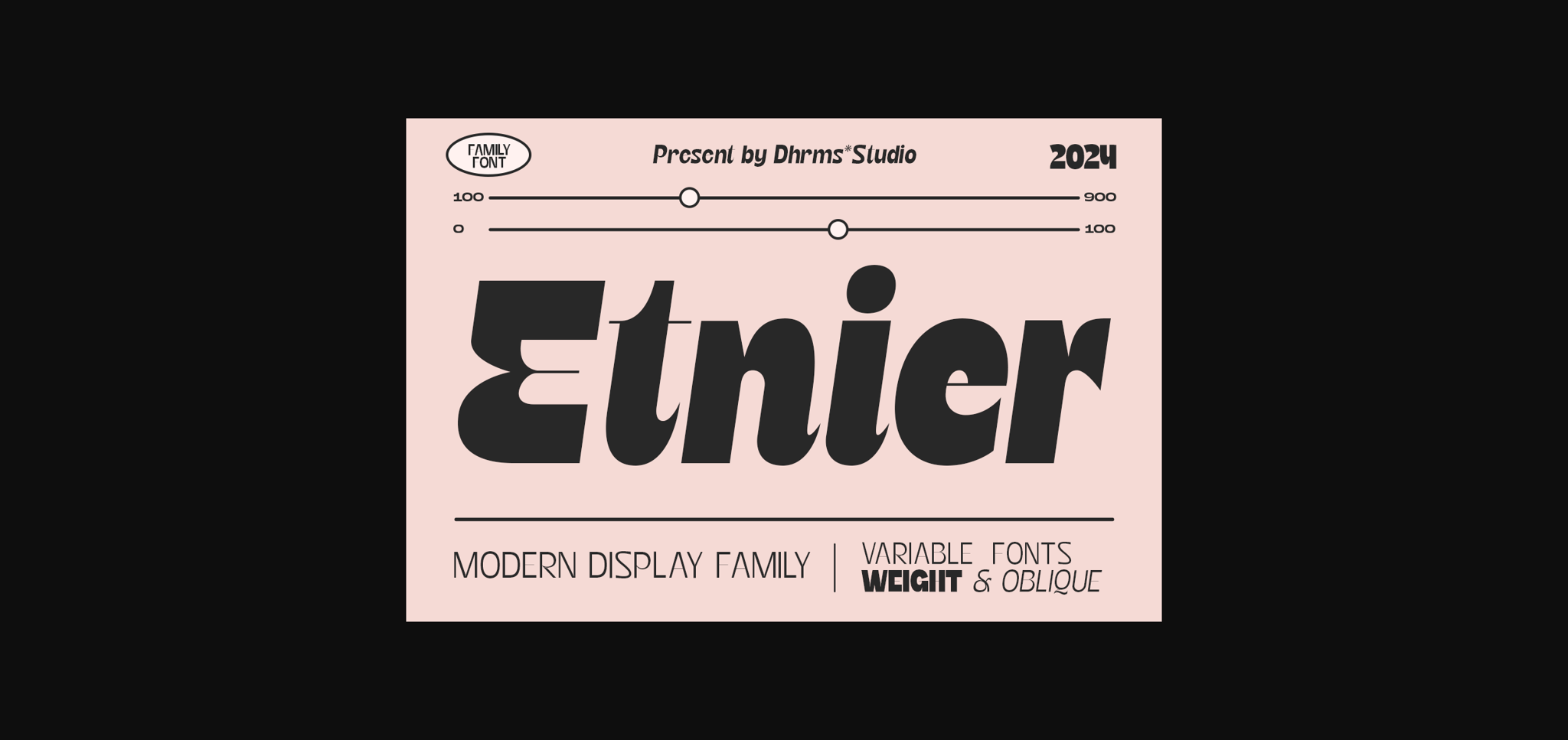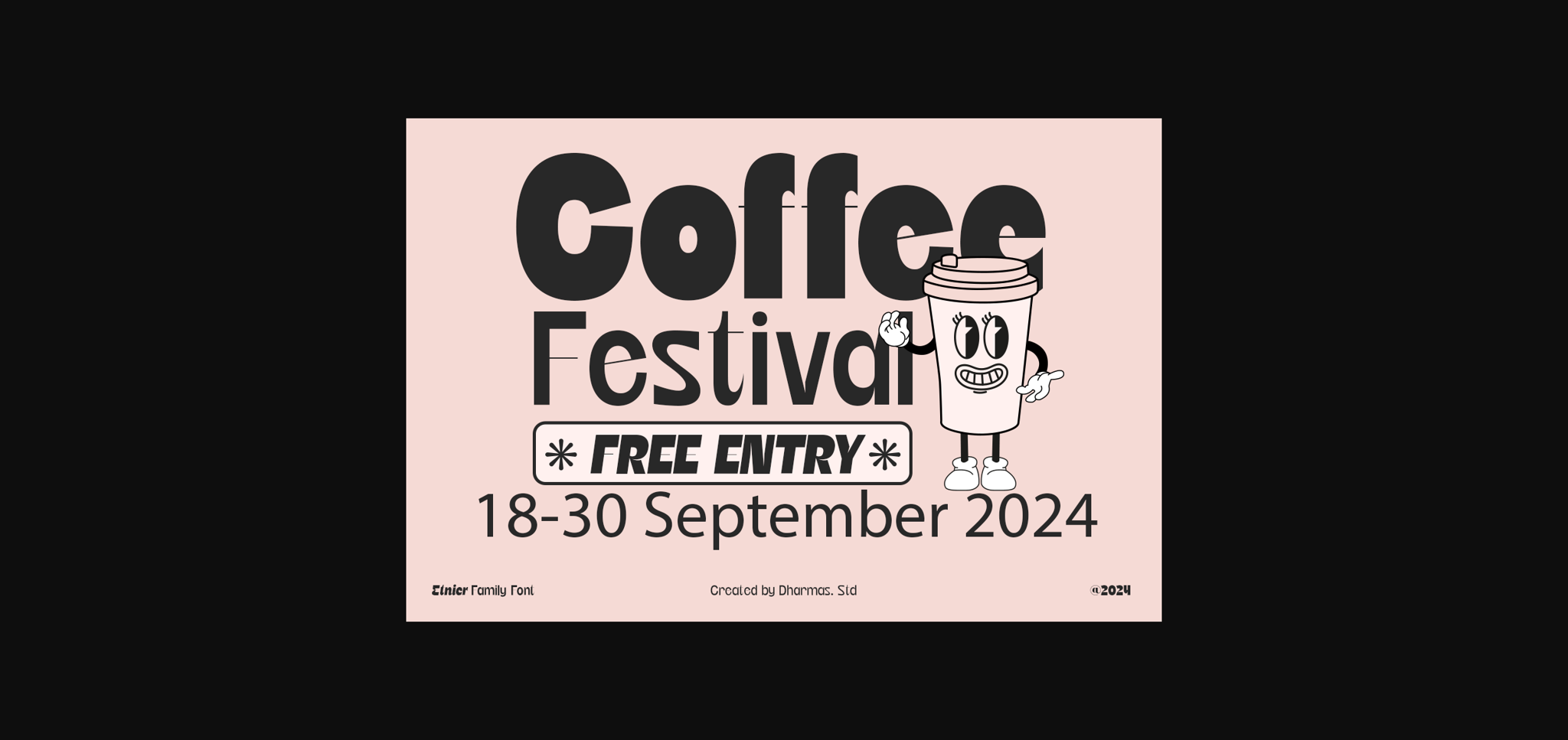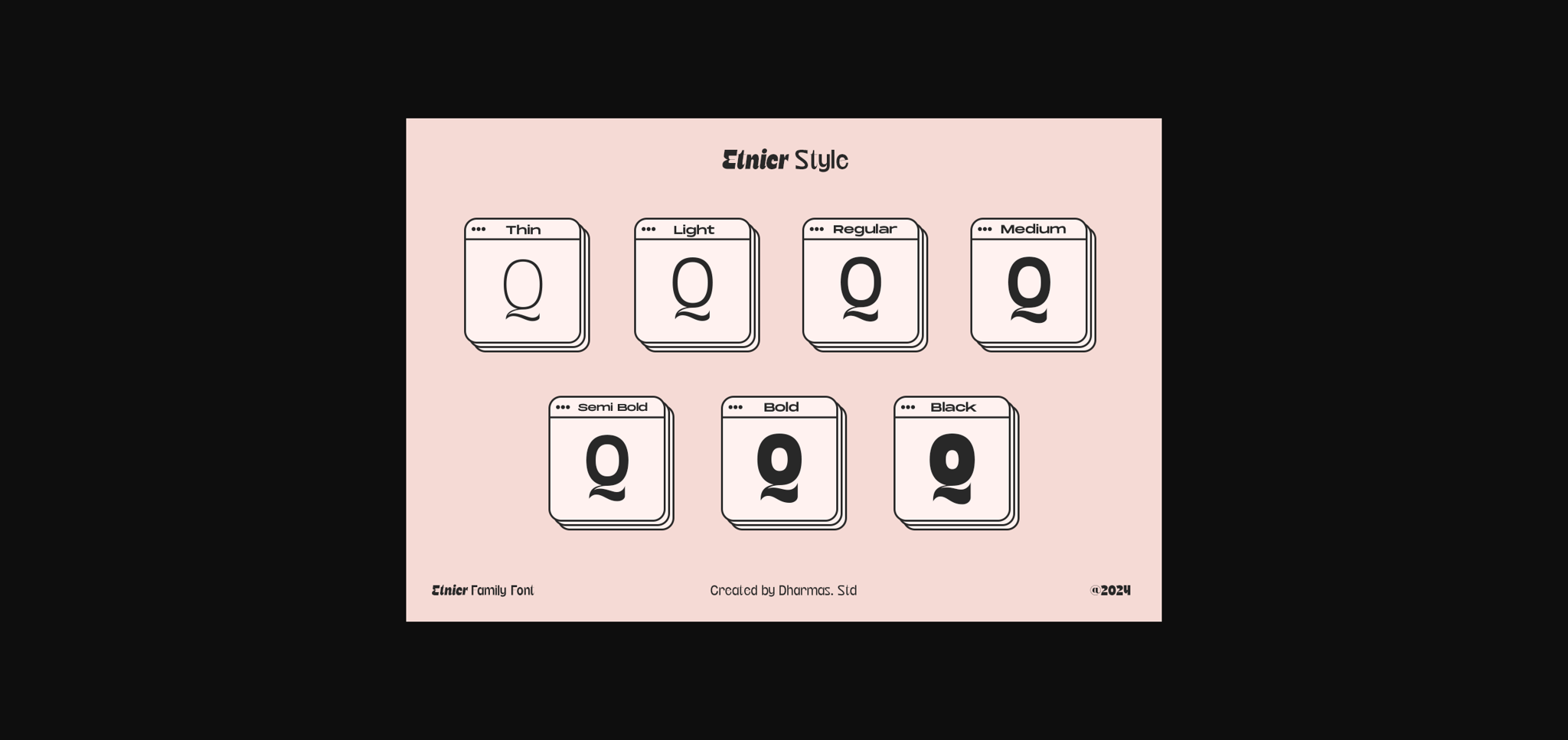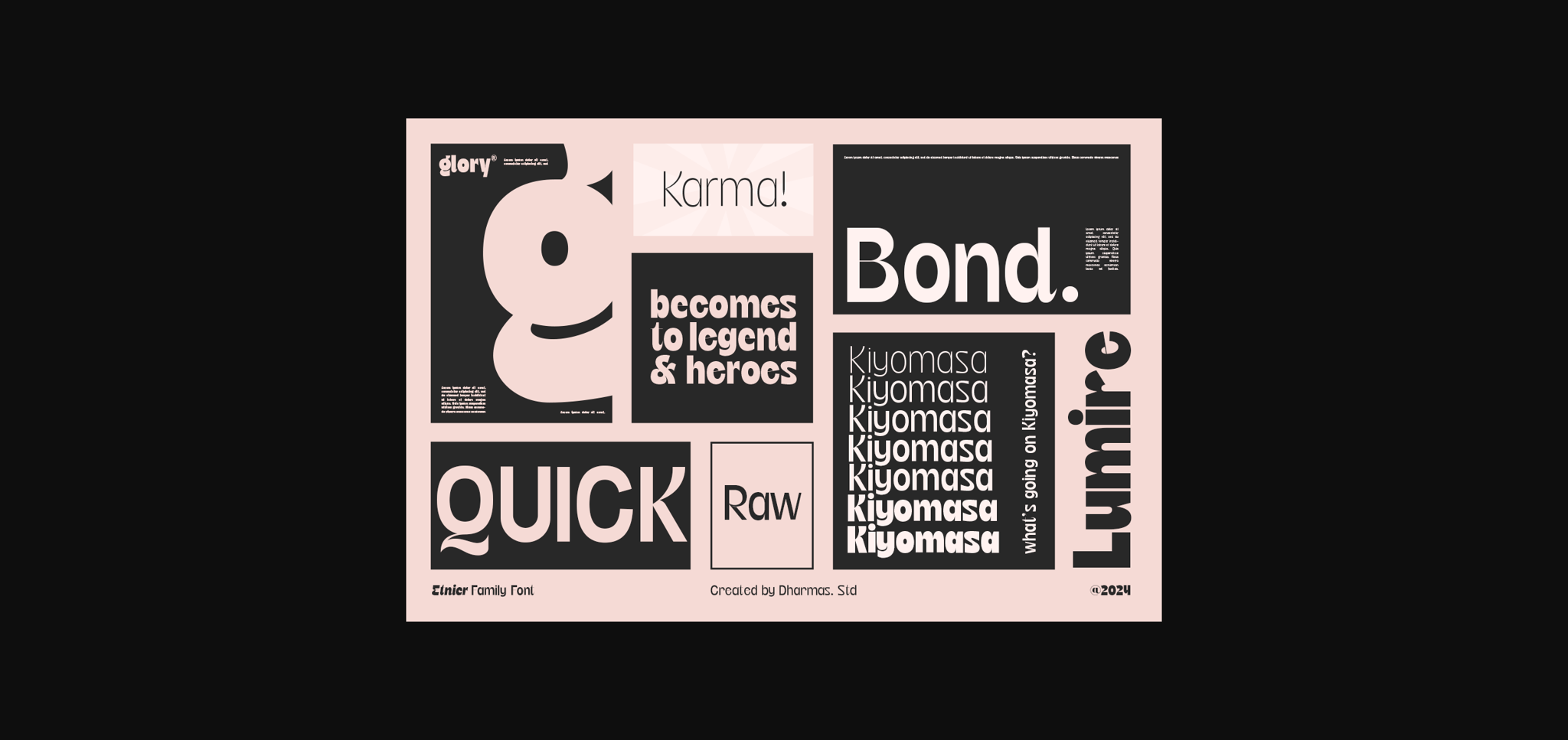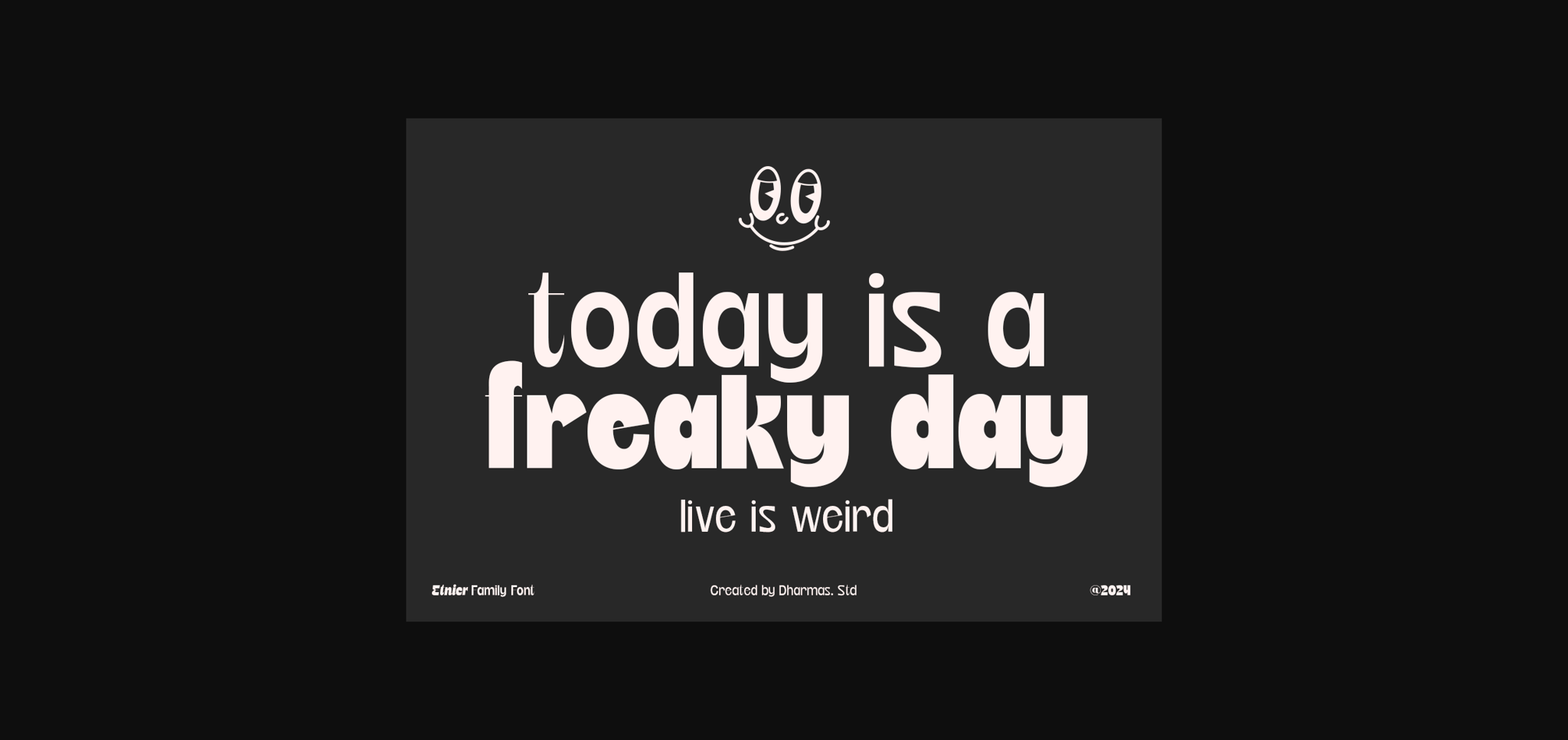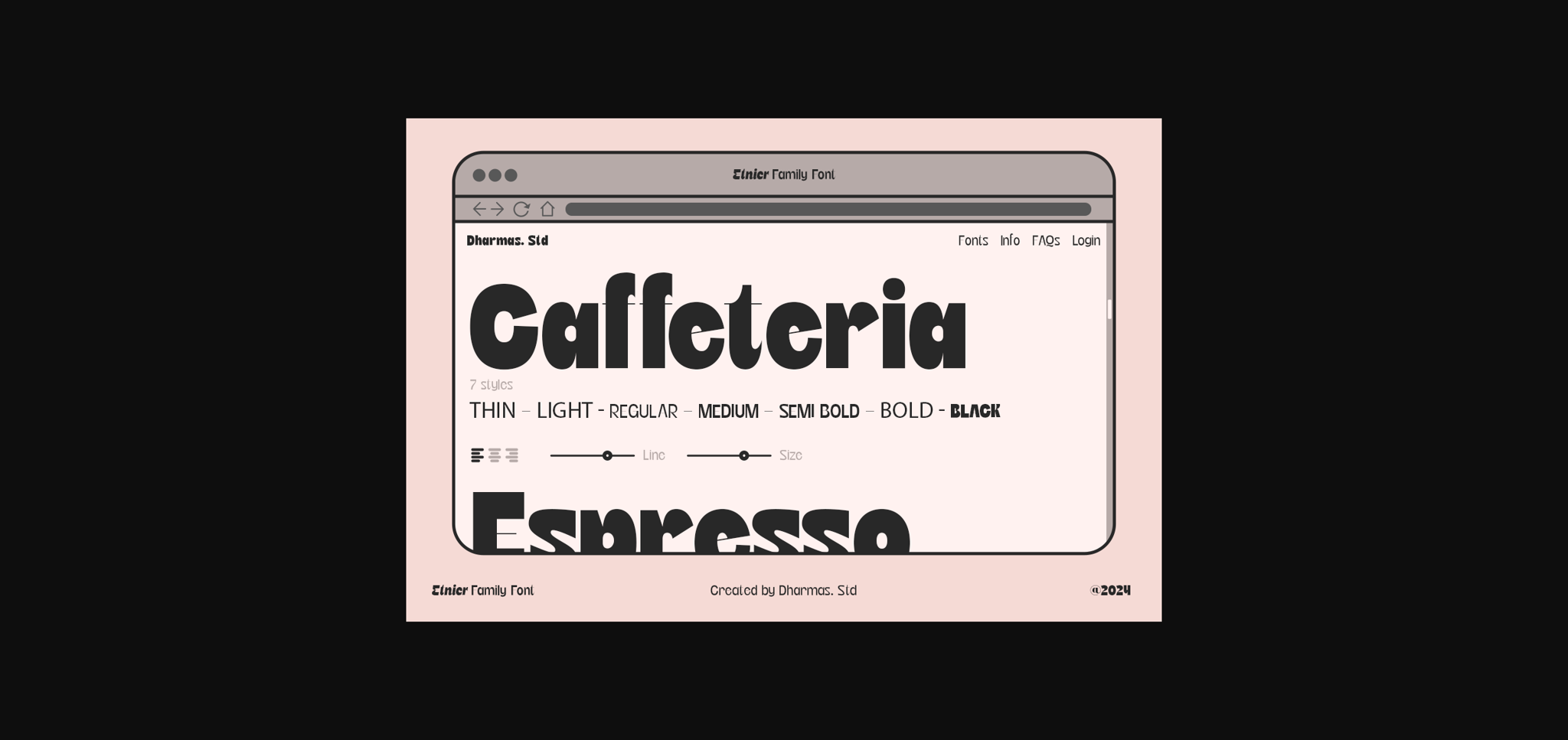
About Etnier Font
Introducing Etnier – A brand-new modern family with a unique!
Etnier is a modern variable font. Essentially, it’s a sans-serif font with a sturdy and squared appearance, ensuring excellent legibility. It offers various widths and italics that provide versatility for your designs. The bolder, the stronger – this defines Etnier. Its bold and robust qualities, especially in the italic version, make it ideal for UI/UX-related designs.